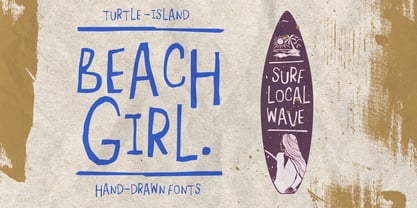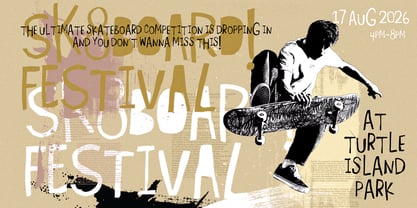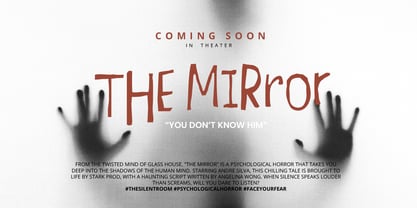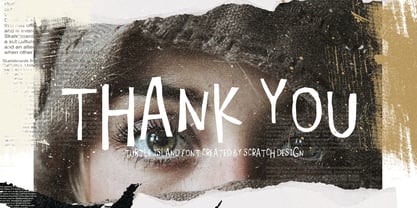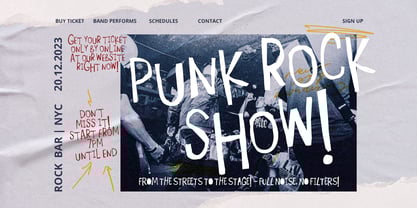
Turtle Island Regular
La familia tipográfica Turtle Island Regular fue diseñada por Gitayogi Irhandi y publicada por Scratch Design. Turtle Island Regular contiene 1 estilos.
Introducing Turtle Island Font
A hand-drawn typeface that brings raw, authentic energy to your design. Turtle Island comes in two unique styles that can be beautifully combined, giving you flexibility and character in every layout.
With its natural ink strokes and handcrafted charm, this font is perfect for free-spirited, artistic, and vintage-inspired projects. Whether you're designing film posters with thriller or horror themes, music posters for rock, punk, or alternative genres, or packaging and apparel that need a bold personal touch of Turtle Island delivers.
Its naïve, expressive shapes capture the true essence of hand-drawn lettering, born directly from the designer's ink strokes. No filter, no compromise just pure typographic personality.